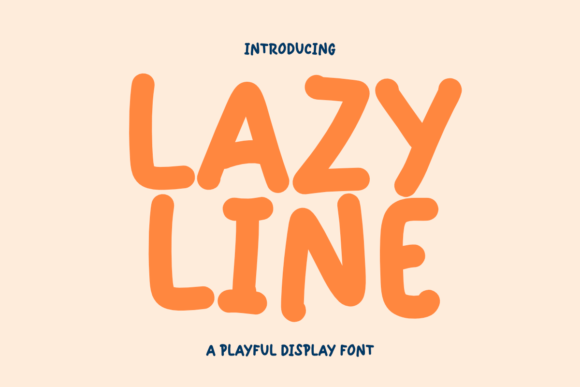
Experience the vibrancy of Lazyline, a captivating display font that adds a touch of whimsy to your digital creations. Immerse yourself in its playful and charming style that brings life to your words. Discover endless possibilities with Lazyline, the perfect font for Twitch overlays, adding an engaging and distinctive touch to your streaming adventures.
Embrace the fun and cute aesthetic of Lazyline, a font that sparks imagination and creativity. Elevate your crafts, quotes, and printing projects with its unique and eye-catching design. Unleash your inner artist and explore the world of SVG, craft supplies, silhouettes, Cricut, stickers, and more. Let Lazyline be your creative companion, transforming ordinary designs into extraordinary expressions.
With Lazyline, the possibilities are limitless. Whether you're a student adding a touch of personality to your school projects or a business owner seeking a distinctive identity, this font delivers versatility like no other. Create t-shirts that stand out, design marketing materials that captivate, and craft invitations that leave a lasting impression. Lazyline is the key to unlocking your design potential and making a statement wherever your creations go.
Don't settle for ordinary fonts; embrace the extraordinary with Lazyline. Its playful and charming style will add a spark to your designs, leaving a lasting impact on your audience. Join the creative revolution and experience the magic of Lazyline today. Let your imagination soar and unlock a world of endless design possibilities.